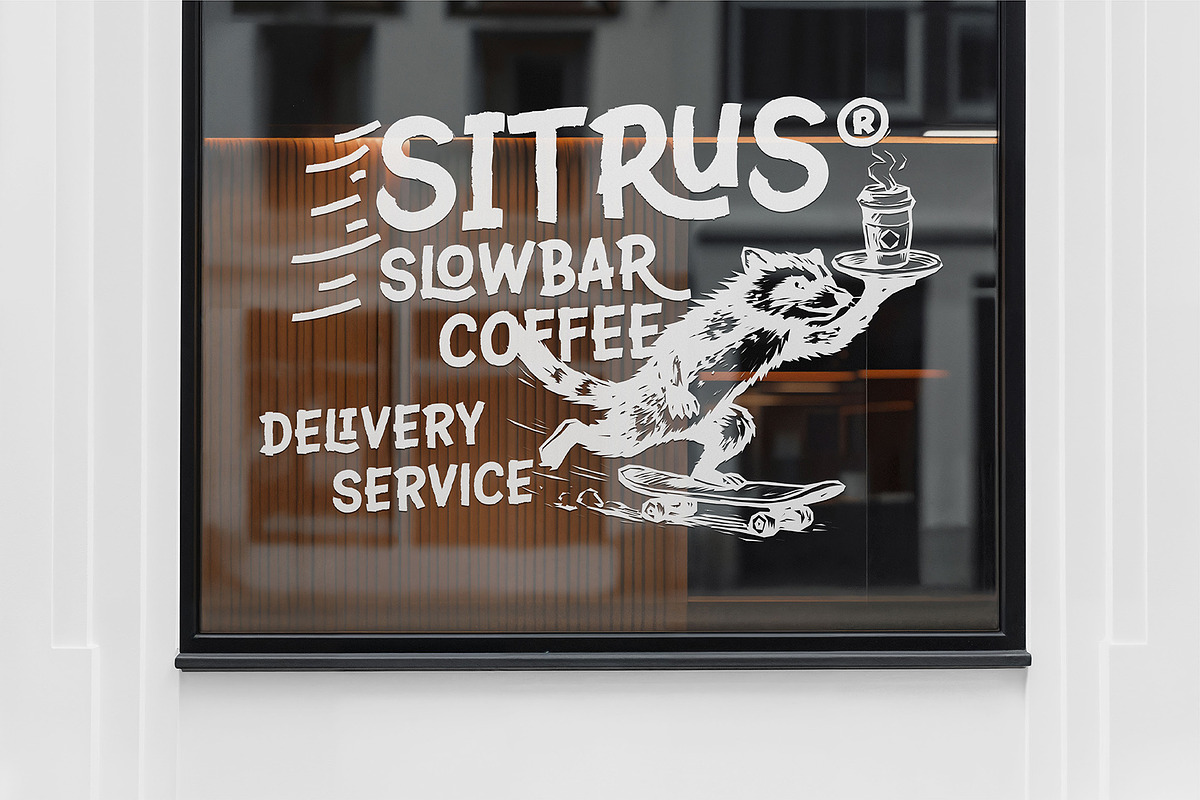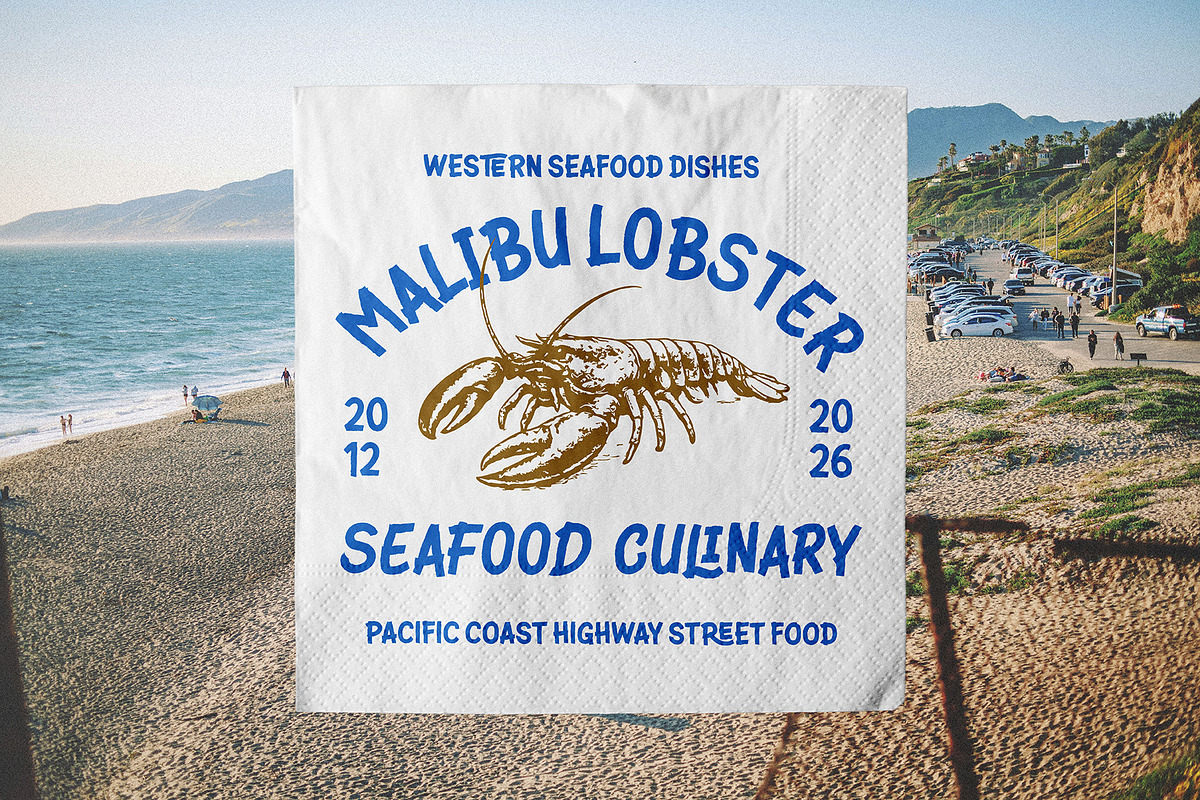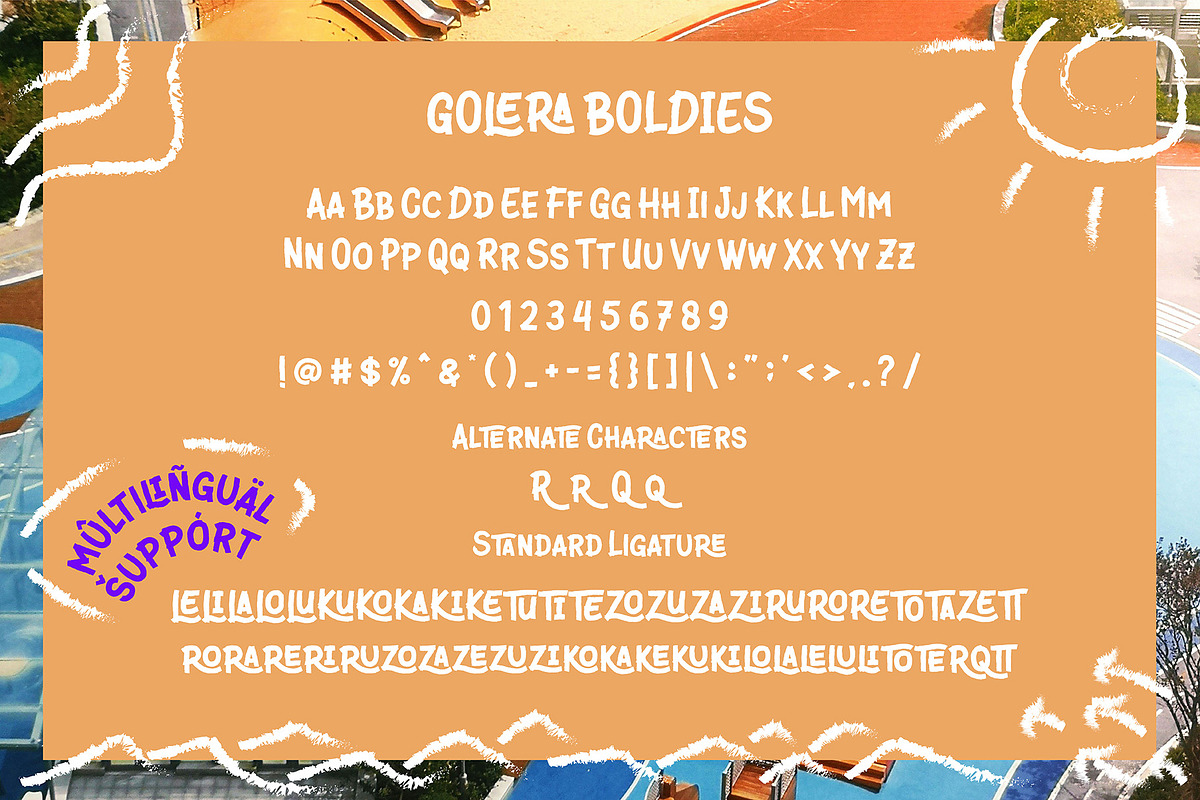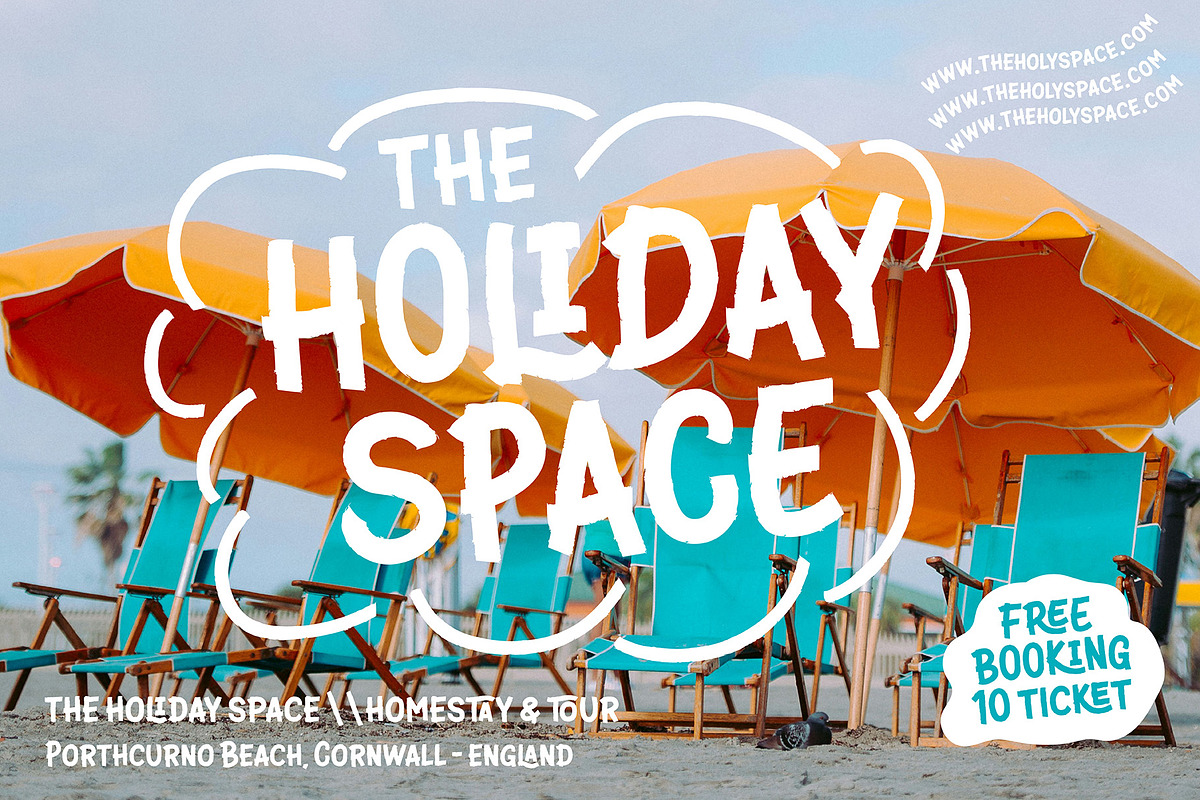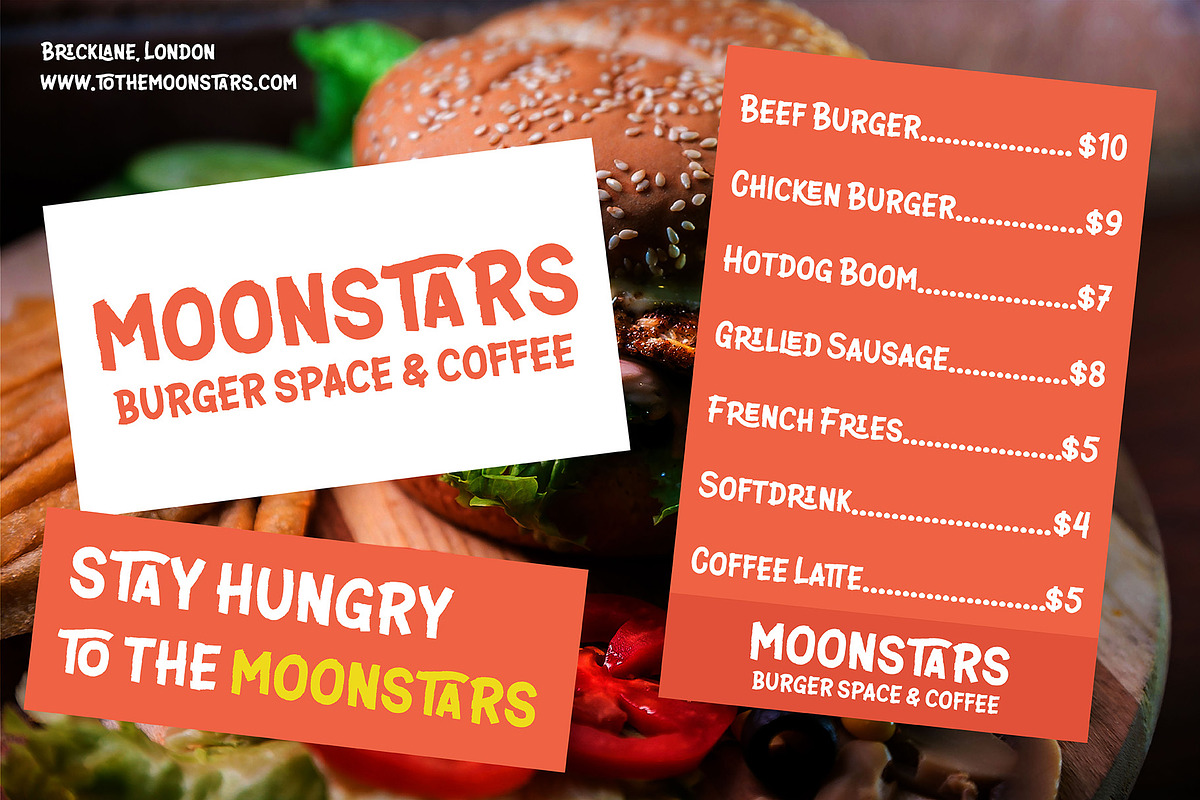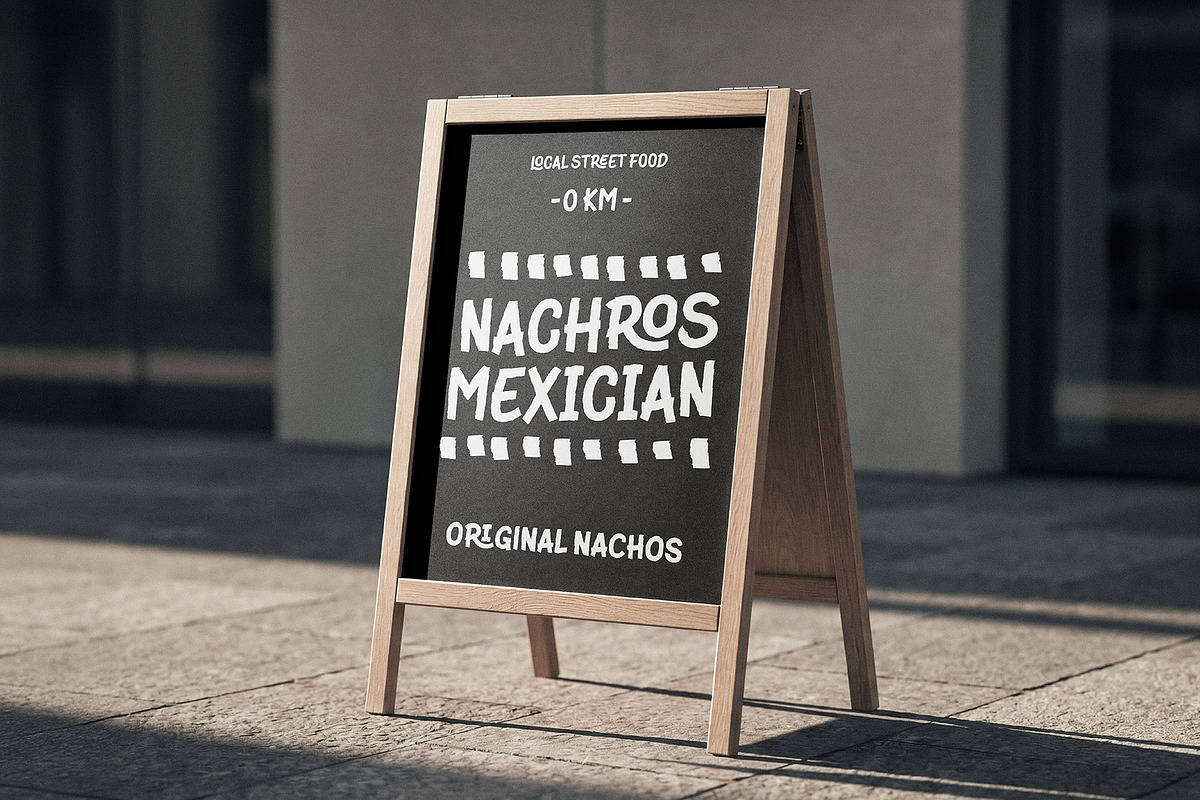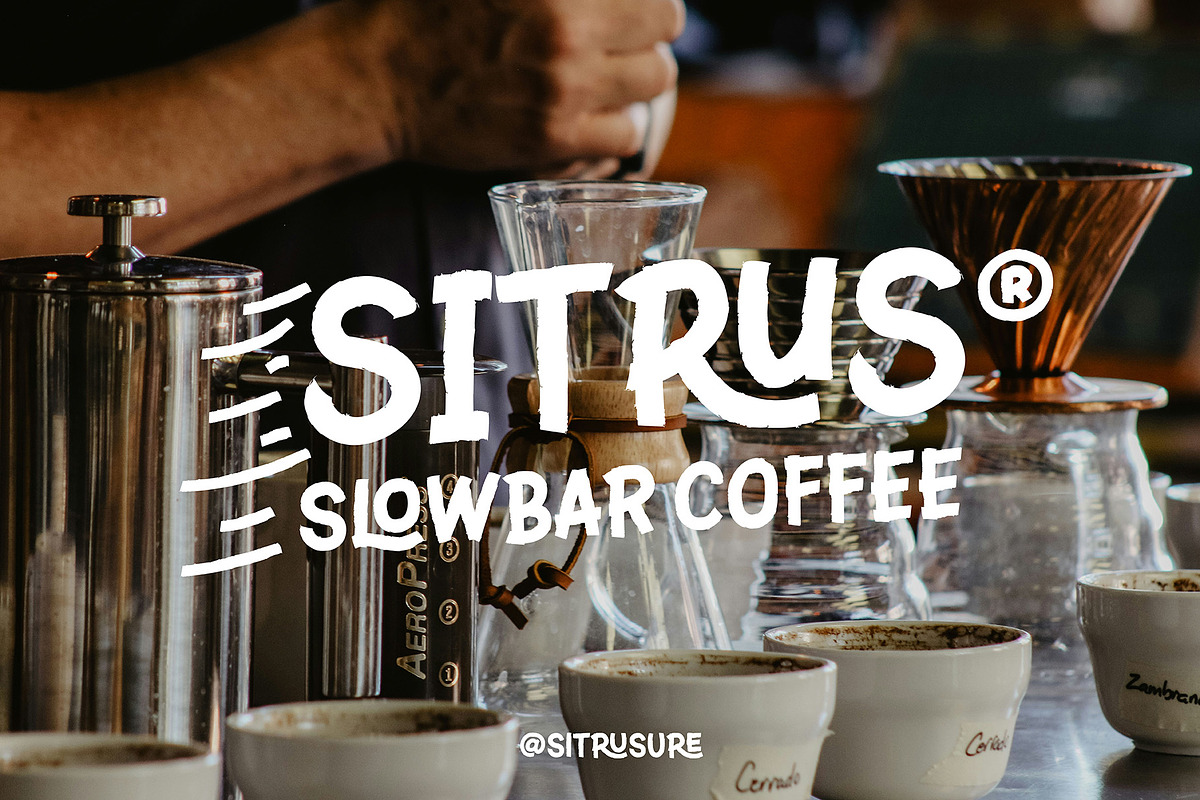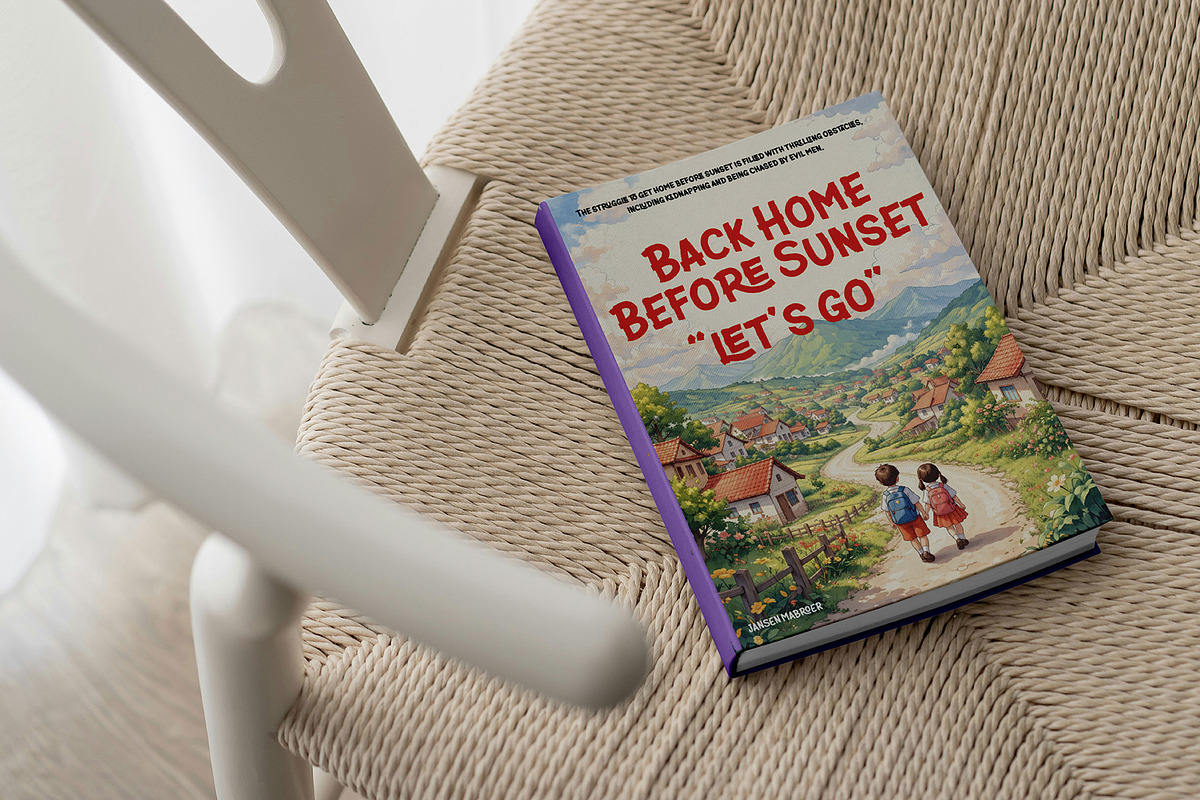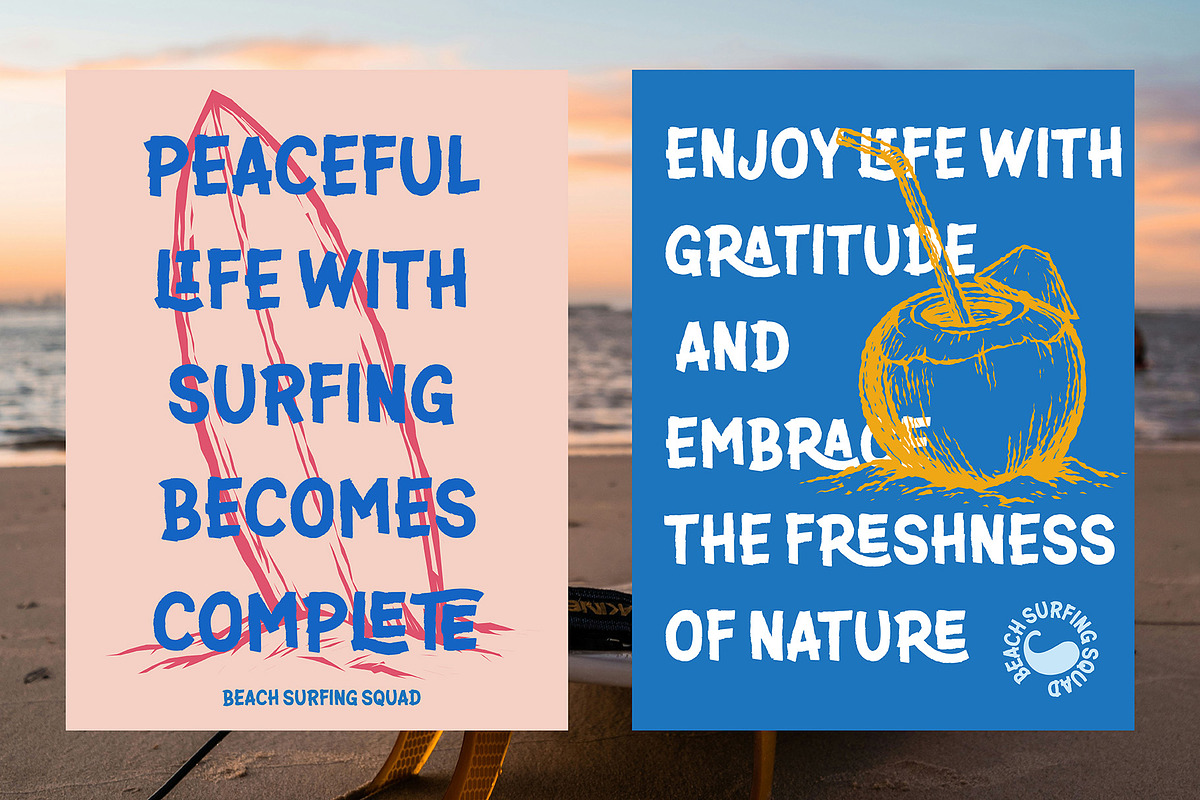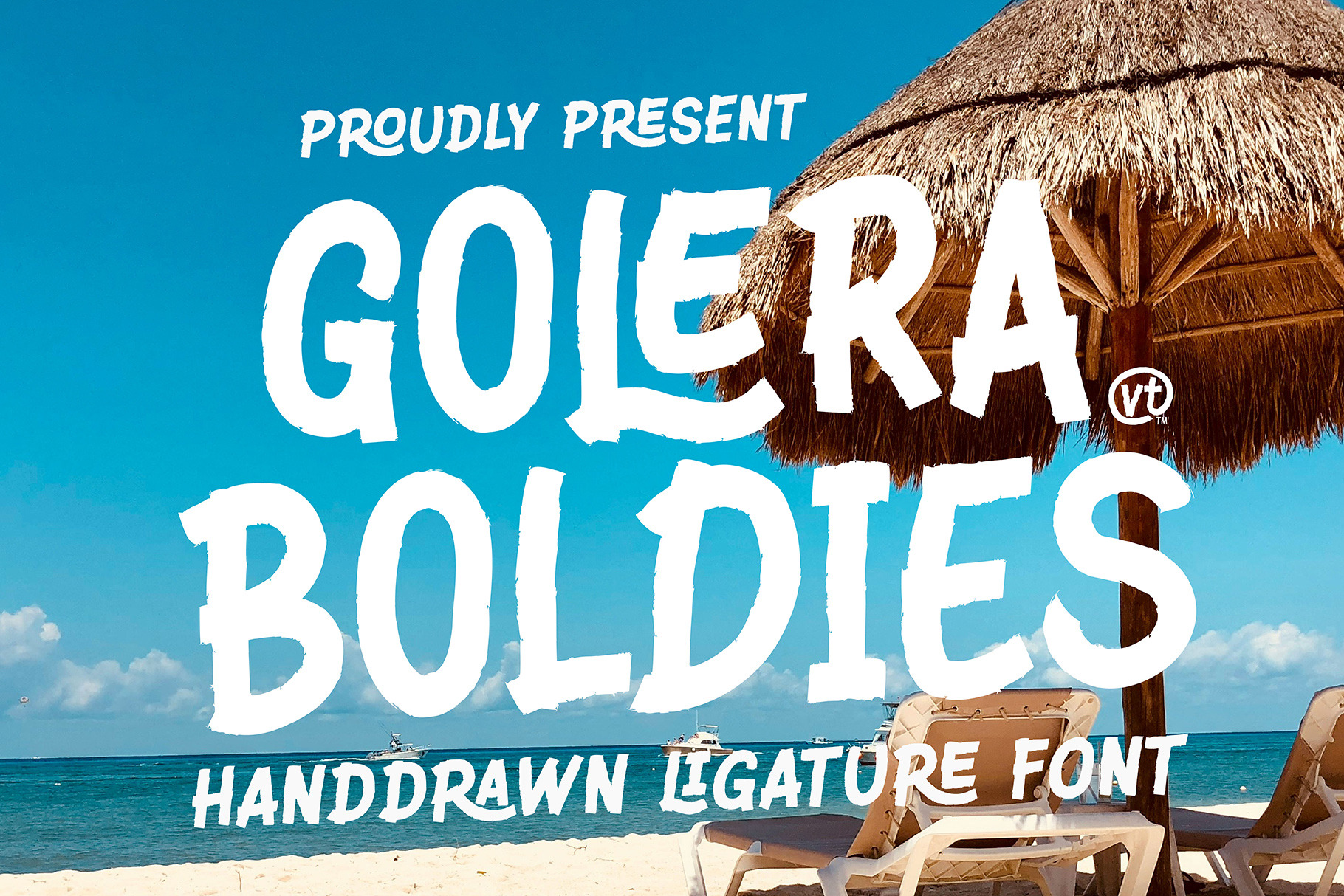
VT Golera Boldies - Ligature Font
Introducing a unique handrawn sans serif font crafted to bring a natural, organic feel into your design projects. This font captures the essence of authentic hand-drawn strokes, carefully designed to mimic real handwriting with subtle imperfections, making every letter feel alive and expressive. Built with a modern yet artistic approach, this font features extensive ligatures that seamlessly connect characters, creating a smooth and visually appealing flow. The rich set of alternate characters allows you to explore creative variations, giving your typography a more dynamic and custom look. Perfect for a wide range of design needs such as branding, packaging, logos, social media, posters, and editorial layouts, this font delivers both readability and personality in one complete typeface.
The font comes in two versatile styles:
Regular – clean and balanced for everyday use
Oblique – slightly slanted for a more expressive and dynamic feel
Whether you're designing for a modern brand or a handcrafted aesthetic, this font will elevate your work with its handmade charm and professional quality.
Hand-drawn sans serif style with natural stroke texture
Rich ligatures for smooth letter connections
Multiple alternate characters for creative flexibility
Clean and readable design with artistic touch
2 styles: Regular & Oblique